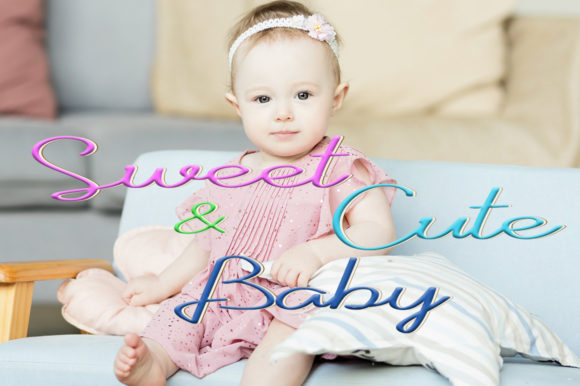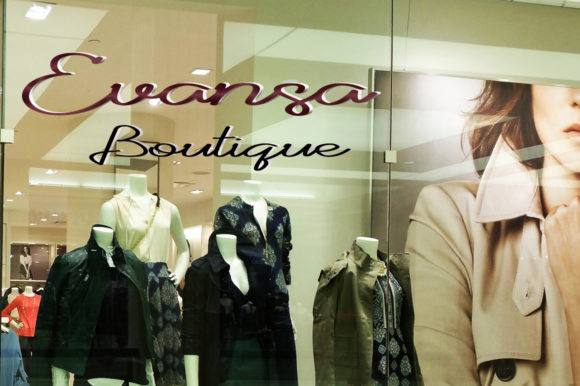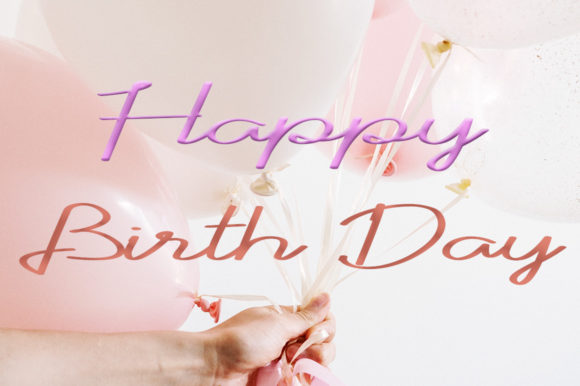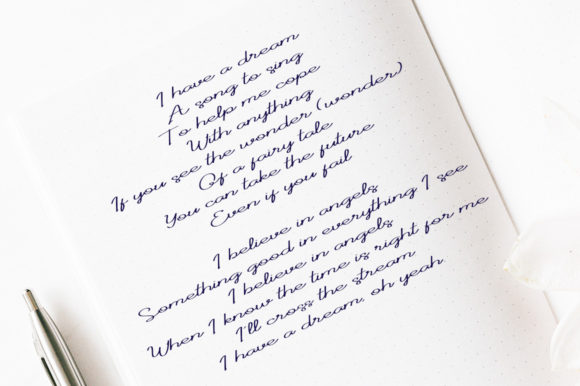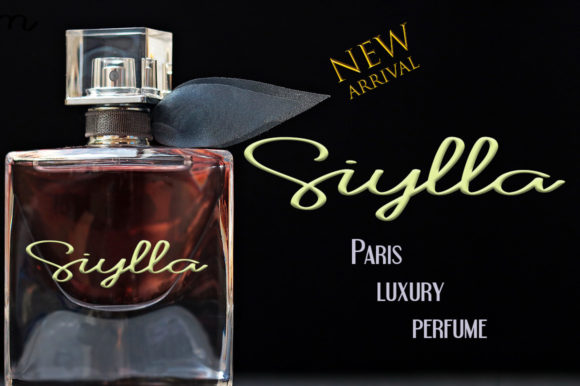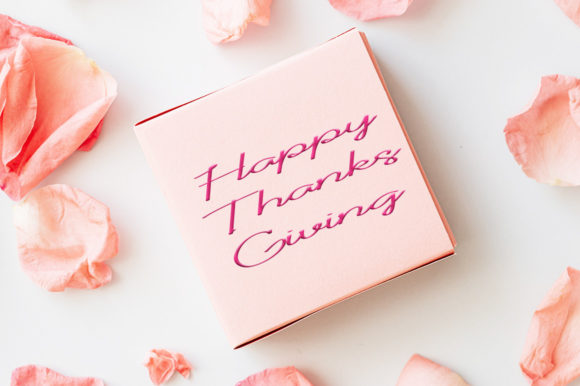
Introducing Evansa Font: A Simple yet Elegant Handwriting Script Font
Are you a designer or crafter looking for a unique and versatile font to elevate your creative projects? Look no further than Evansa Font, a simple handwriting script font designed to add a touch of elegance and sophistication to your designs. In this article, we’ll explore the features and benefits of Evansa Font, and how it can be used to enhance your packaging products, flyers, posters, album galleries, and other design projects.
What is Evansa Font?
Evansa Font is a beautifully crafted handwriting script font that is perfect for designers and crafters who want to add a personal touch to their work. Its simple yet elegant design makes it suitable for a wide range of applications, from packaging products and flyers to posters, album galleries, and other design projects. With its flowing script and delicate lines, Evansa Font is sure to add a touch of sophistication and style to any design.
Key Features of Evansa Font
So, what makes Evansa Font so special? Here are some of its key features:
- Simple Handwriting Script Design: Evansa Font has a beautiful, simple handwriting script design that is easy to read and looks great in any design project.
- PUA Encoded: Evansa Font is PUA (Private Use Area) encoded, which means that you can access all of the glyphs and swashes with ease. This makes it easy to customize your designs and add your own personal touch.
- Versatile: Evansa Font is a versatile font that can be used for a wide range of design projects, from packaging products and flyers to posters, album galleries, and more.
Benefits of Using Evansa Font
So, why should you choose Evansa Font for your design projects? Here are some of the benefits of using this beautiful font:
- Elegant and Sophisticated: Evansa Font adds a touch of elegance and sophistication to any design project, making it perfect for designers and crafters who want to create high-end designs.
- Easy to Use: With its PUA encoding, Evansa Font is easy to use and customize, even for designers who are new to font editing.
- Time-Saving: Evansa Font saves you time and effort, as you can easily access all of the glyphs and swashes you need to create beautiful designs.
Using Evansa Font in Your Design Projects
So, how can you use Evansa Font in your design projects? Here are some ideas to get you started:
- Packaging Products: Use Evansa Font to add a personal touch to your packaging products, such as labels, tags, and cards.
- Flyers and Brochures: Add a touch of elegance to your flyers and brochures with Evansa Font, perfect for promoting events, products, or services.
- Posters and Events: Use Evansa Font to create eye-catching posters and event materials, such as invitations, tickets, and programs.
- Album Galleries: Add a touch of sophistication to your album galleries with Evansa Font, perfect for photographers, artists, and designers.
In conclusion, Evansa Font is a beautiful and versatile handwriting script font that is perfect for designers and crafters who want to add a touch of elegance and sophistication to their design projects. With its simple yet elegant design, PUA encoding, and versatility, Evansa Font is a great choice for a wide range of applications. Whether you’re creating packaging products, flyers, posters, album galleries, or other design projects, Evansa Font is sure to elevate your designs and help you stand out from the crowd.